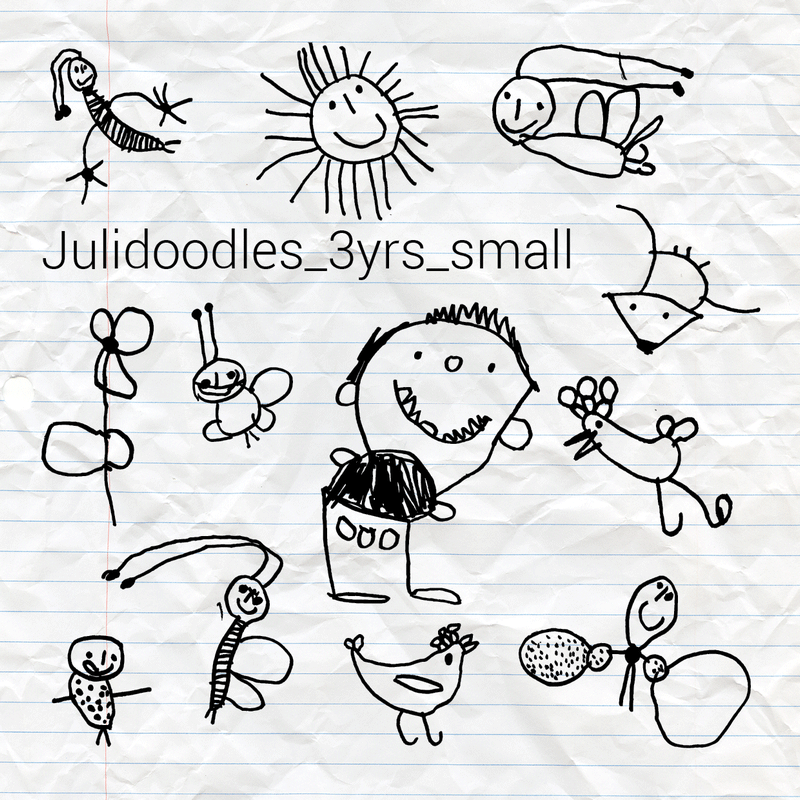
Preview and download Julidoodles 3yrs small Font. Created by Vaclav Krejci in Dingbats Kids styles with 100% Free license.
Categories | Dingbats, Kids |
Doodles and drawings of my daughter Julie during the year of 2017 (when she was 3 years old). All donations would be used solely on getting her new markers and papers. Or candies. I�m still undecided. Lots of birds, suns, foxes, flowers, unidentified animals and big smiles. The sun for letter "x" was actually drawn when she was celebrating her 2 years birthday. I wish I had this talent back then. Use however and for whatever you want. No restrictions. |